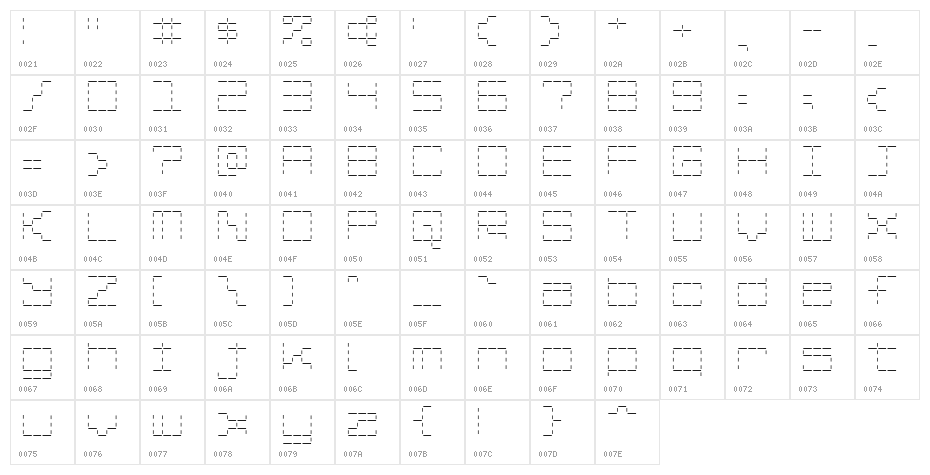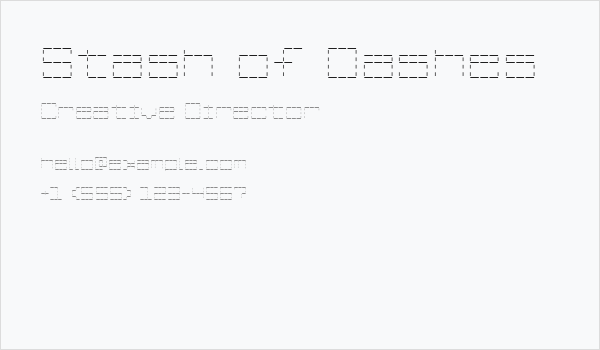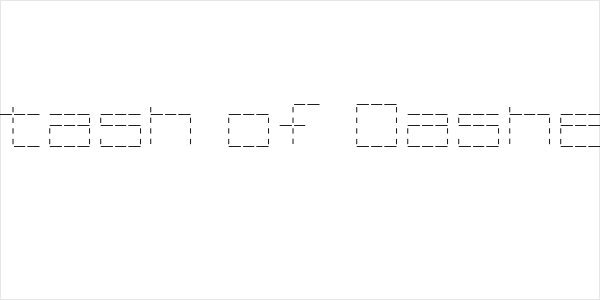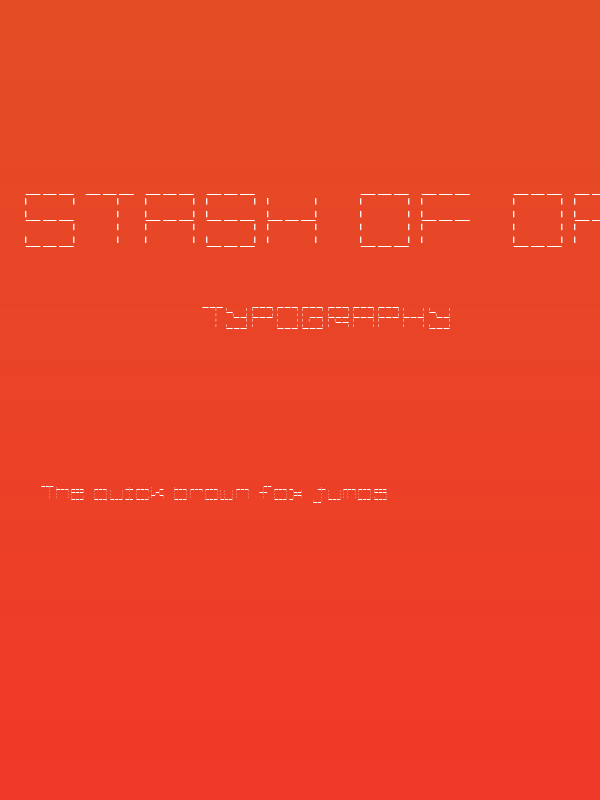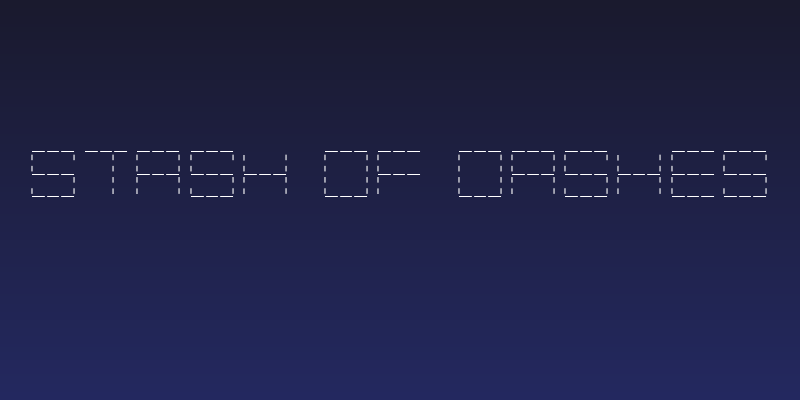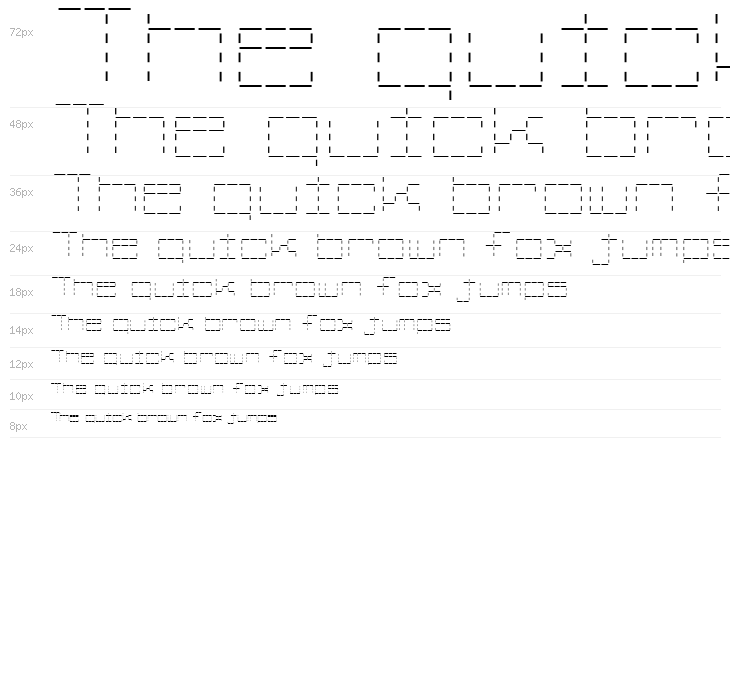
Stash of Dashes Font
Stash of Dashes Description
This font features a unique, dashed line style that creates a digital, pixelated appearance. Each character is constructed from a series of horizontal and vertical dashes, giving it a distinct, modern look. The uppercase and lowercase letters maintain consistent proportions, while the numbers and special characters follow the same dashed pattern, ensuring uniformity across all glyphs. This design is reminiscent of early digital displays, offering a retro yet futuristic aesthetic. The spacing between characters is normal, allowing for clear readability despite the unconventional design.
| Use Case | Logos, Headlines, Digital displays |
| Proposed Projects | Ideal for digital art projects, tech-themed designs, retro video game graphics, or any creative work that requires a futuristic or digital aesthetic. |